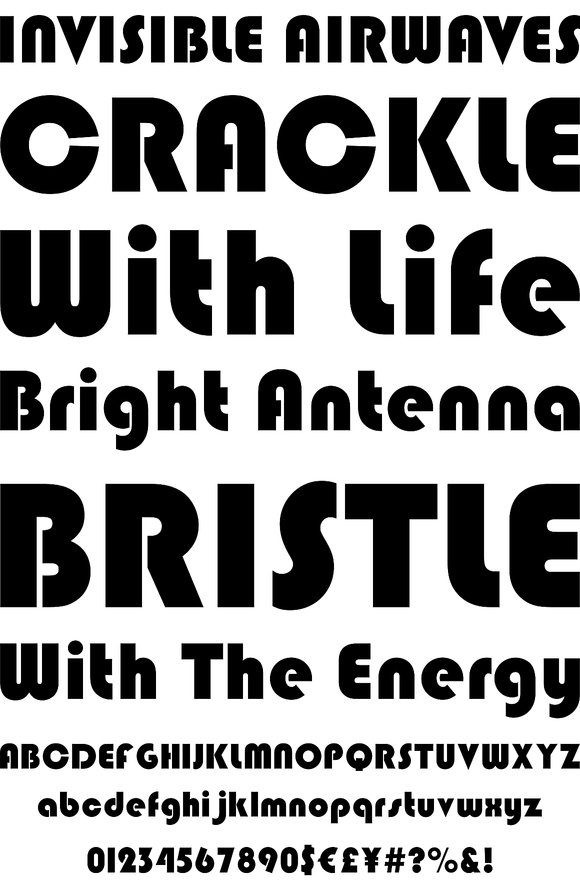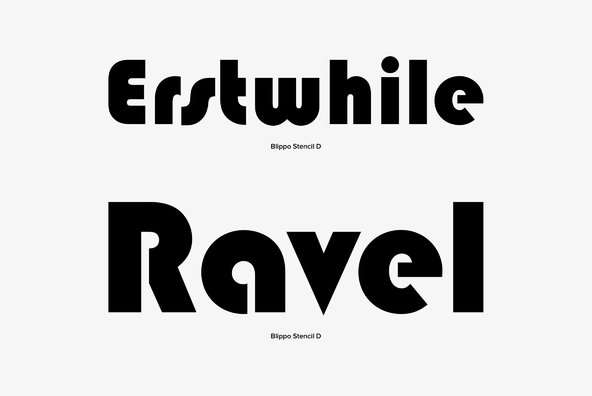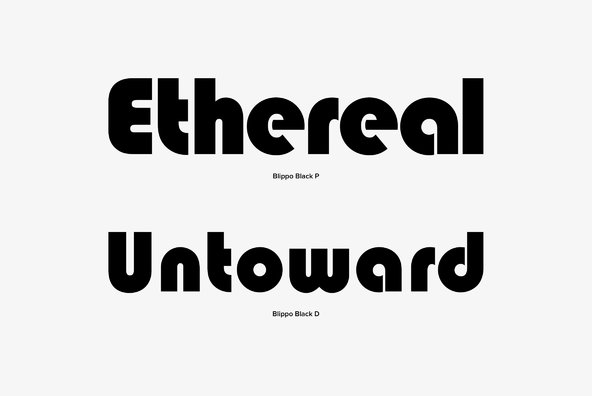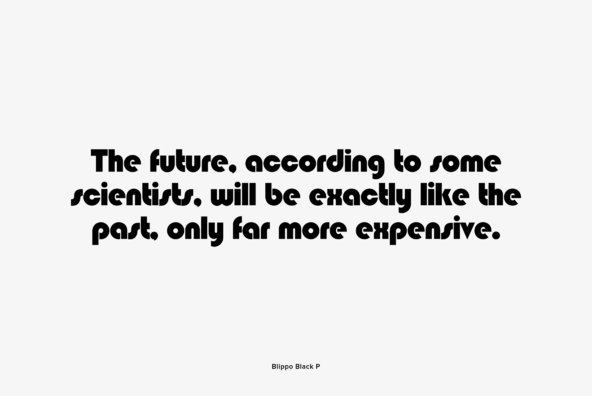
Blippo was designed by Joe Taylor for Fotostar in 1969 as a black version of Burko Bold, which itself is based on the unfinished design by the German Bauhaus school. The font was named Blippo Black by Joe's boss, Robert Trogmann. This version of Blippo is published by URW, provided by Facsimile Fonts.